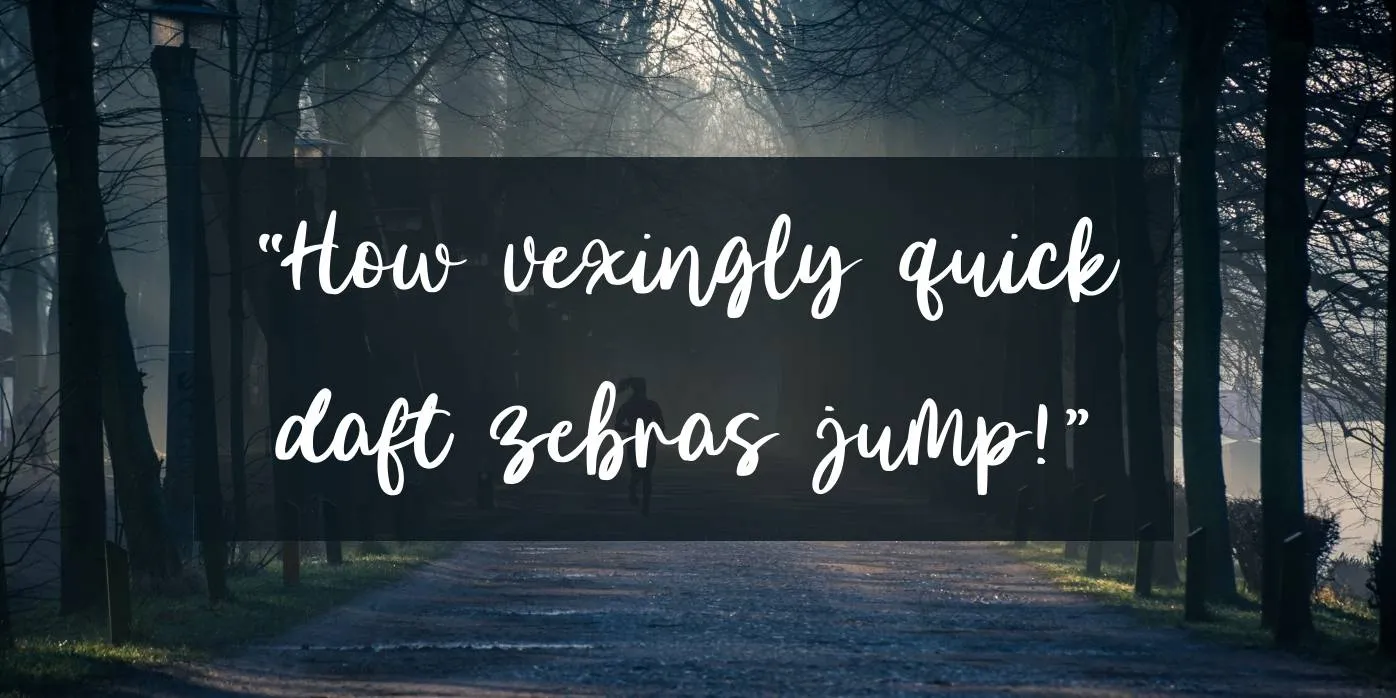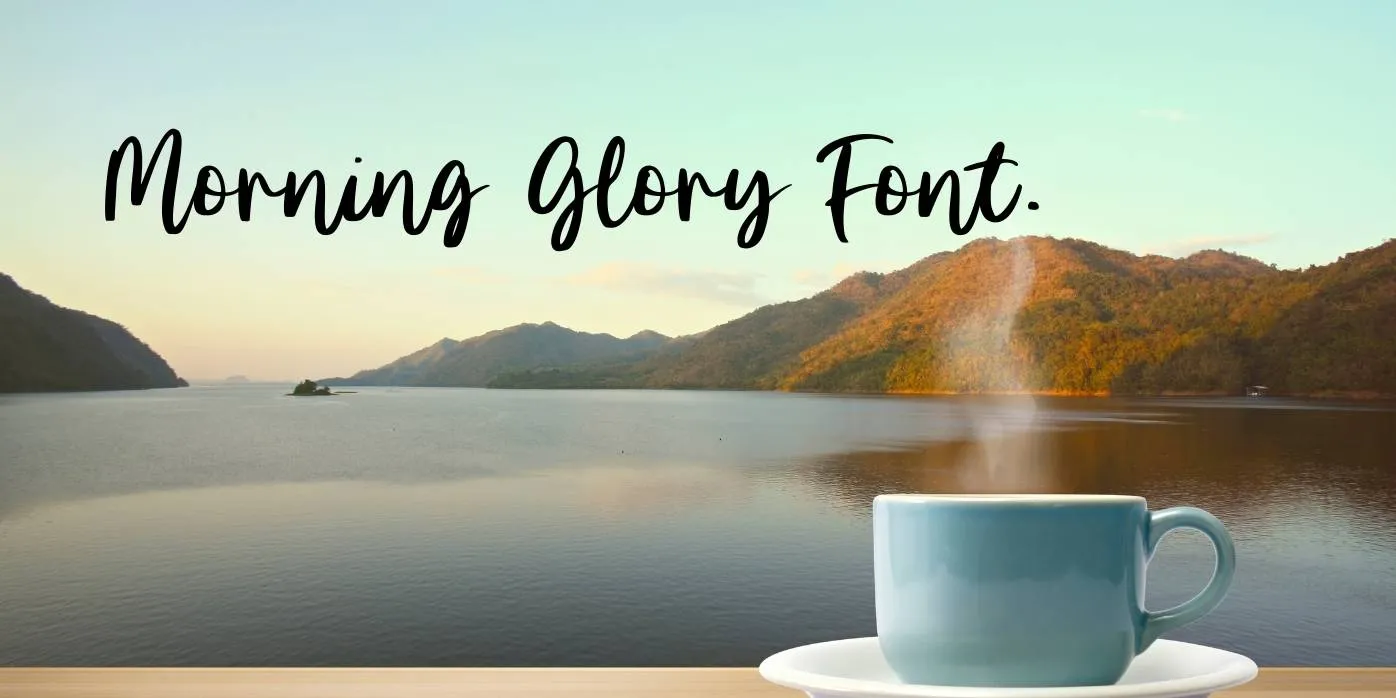
Morning Glory Font
Morning Glory Font was designed by Collab Studio. This font family belongs to the Display typeface. This classic font is a display typeface with 4 different styles This attractive font can be perfect for creating headlines, logos, and decorative text. This staggering has an extensive glyph set that supports most written languages including Greek, Cyrillic, and is also available in special Latin-based character sets.
This awesome Font was designed for optimal screen performance. It is best for the CSS Family. This stunning font is famous because of its flower shape symmetry. This popular font family comes in 4 different styles.